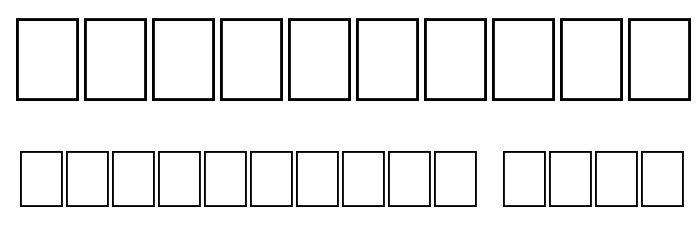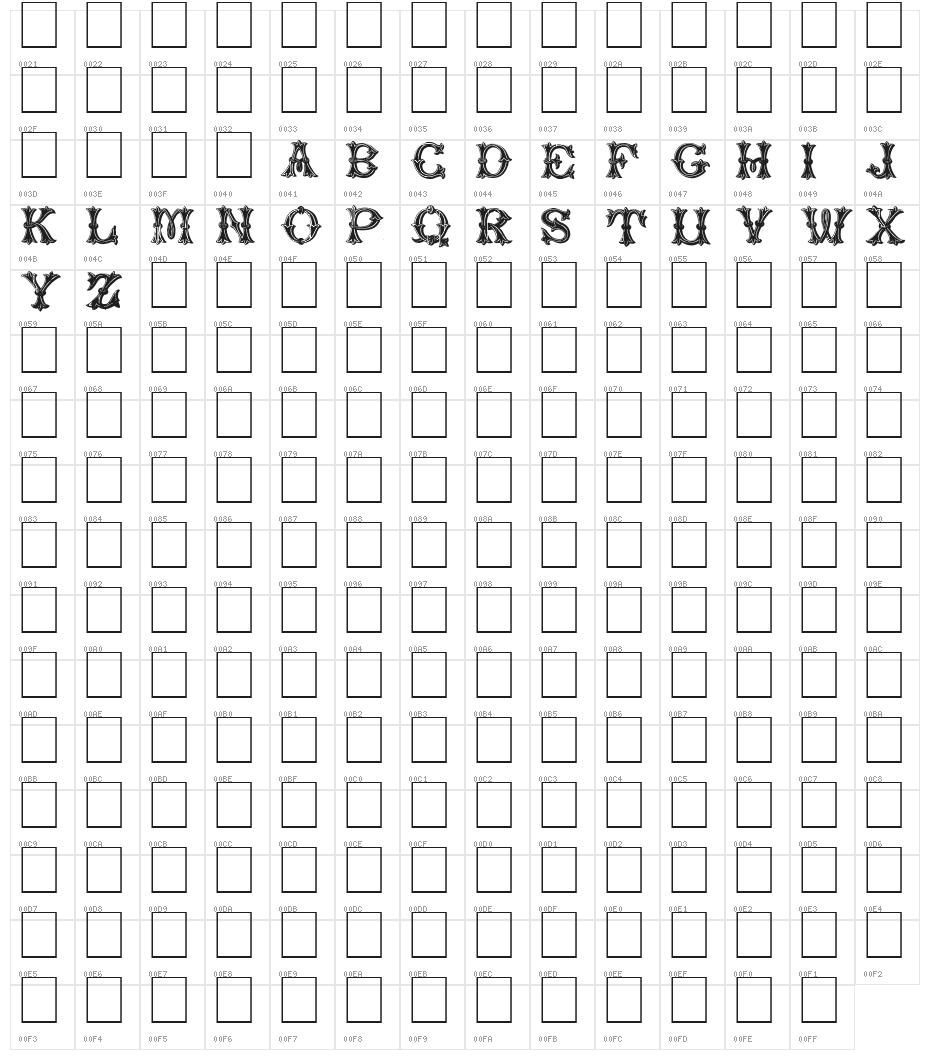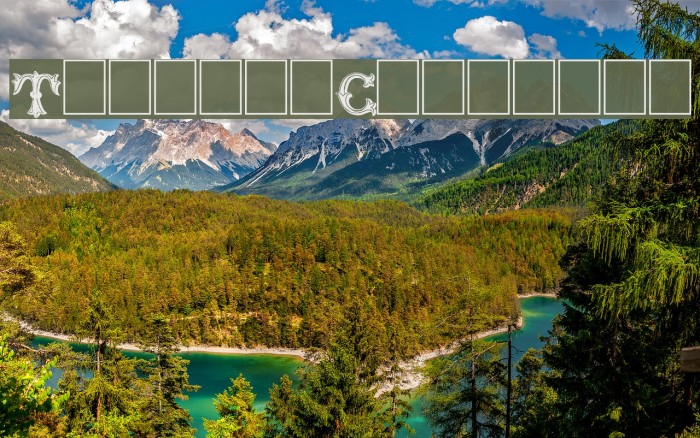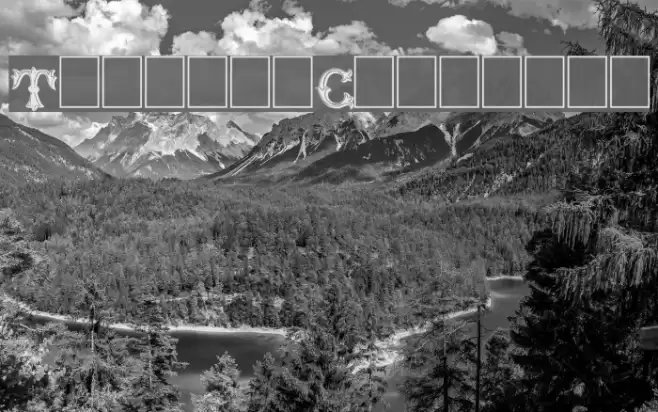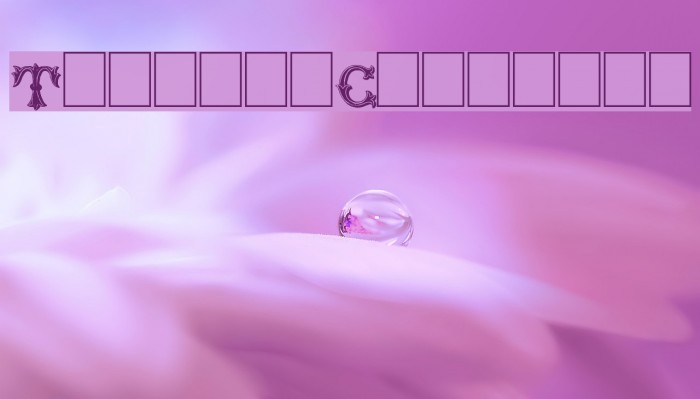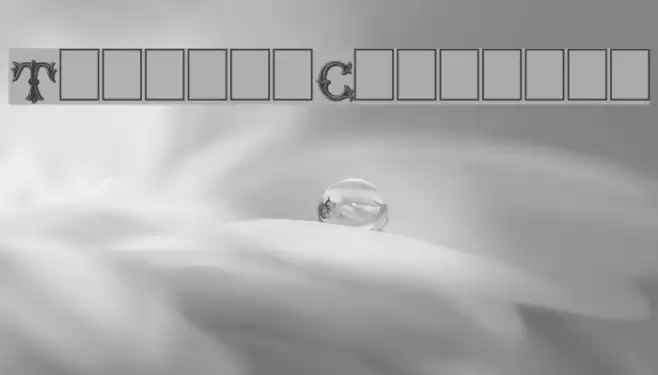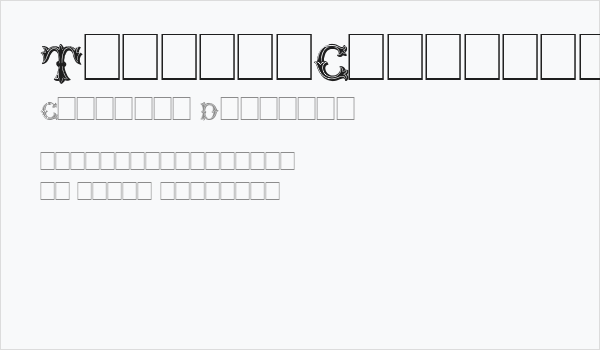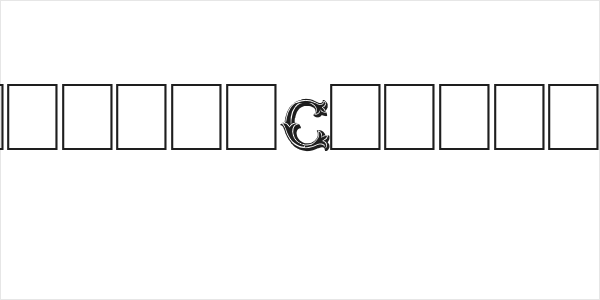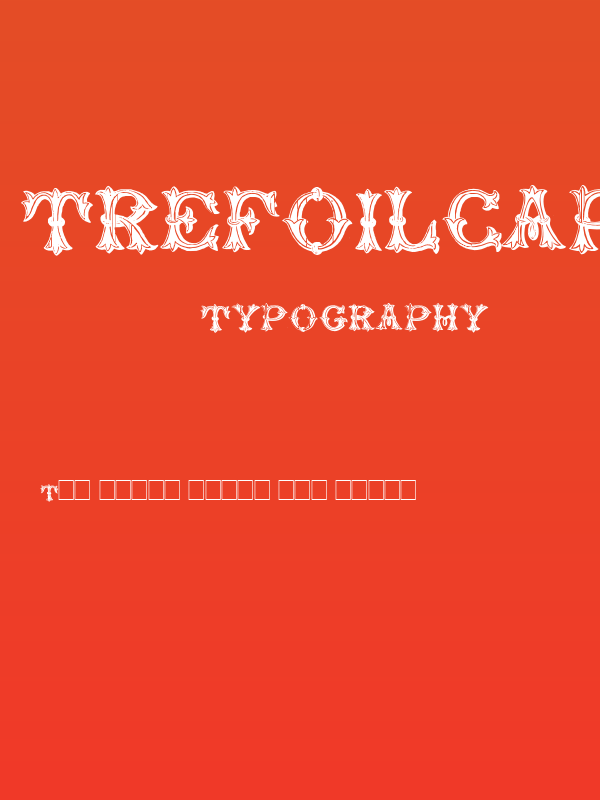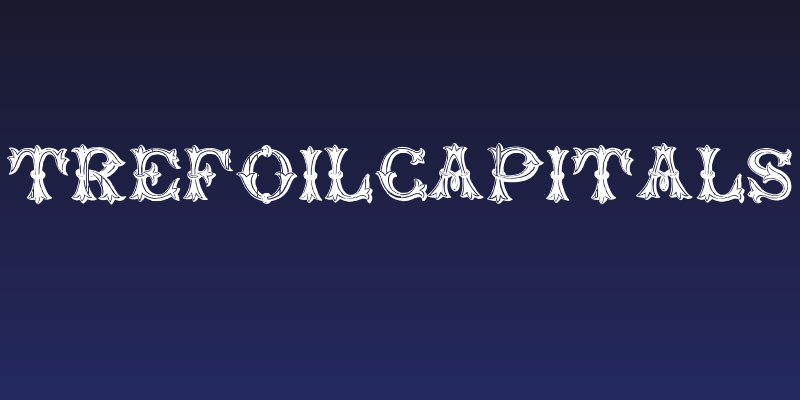
TrefoilCapitals Font
TrefoilCapitals Description
This font features a highly decorative and intricate design, characterized by ornate, intertwining elements that resemble trefoil patterns. Each letter is embellished with elaborate flourishes, giving it a distinctly ornamental and artistic appearance. The uppercase letters are the primary focus, showcasing a unique blend of traditional and decorative styles. The font's complexity and detailed design make it stand out, suitable for projects that require a touch of elegance and sophistication.
| Proposed Projects | Ideal for wedding invitations, luxury branding, decorative signage, and artistic projects that require a sophisticated and elegant touch. |